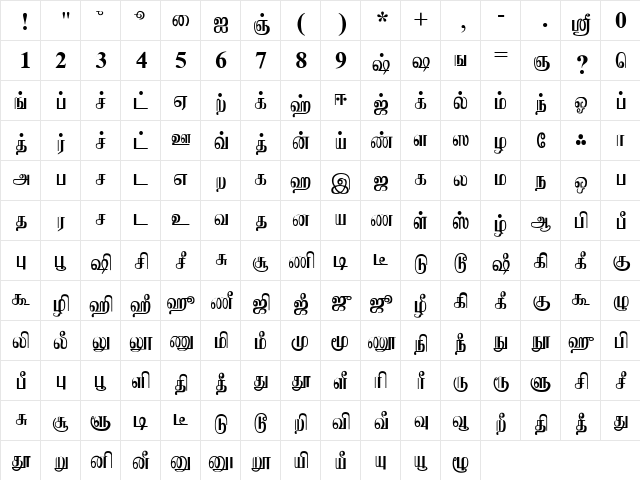
Jaffna Normal Font Preview
Jaffna Normal
Design Context for Jaffna Typeface
Jaffna offers clean, dependable letterforms without strong stylistic allegiance, making it a practical choice for designers who need flexibility.